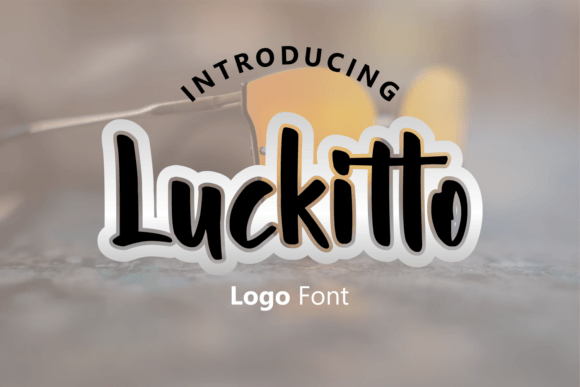
Journey into the realm of captivating logos with Luckitto, the font that breathes life into your brand's identity. Inspired by a snack food packaging logo, Luckitto exudes a unique and refreshing vibe that sets your designs apart. Its meticulously crafted characters dance with elegance, making it the perfect choice for packaging logos, identity logos, brochures, headlines, clothing hand tags, footwear, and other casual products.
With Luckitto, your creations will radiate a sense of individuality and style. Its versatility allows you to weave magic across a diverse range of projects, effortlessly elevating your designs to new heights. Whether you seek a font that commands attention or one that whispers sophistication, Luckitto gracefully adapts to your vision.
Dive into the depths of Luckitto's character set and discover a world of possibilities. Uppercase and lowercase letters intertwine harmoniously, while symbols and standard ligatures add a touch of intrigue. Its multi-language support ensures that your designs transcend borders, reaching a global audience with your message.
Embrace Luckitto today and unlock the gateway to extraordinary logos that resonate with your customers. Its captivating charm will transform your designs into masterpieces, leaving an unforgettable impression that lingers in the minds of all who behold them.